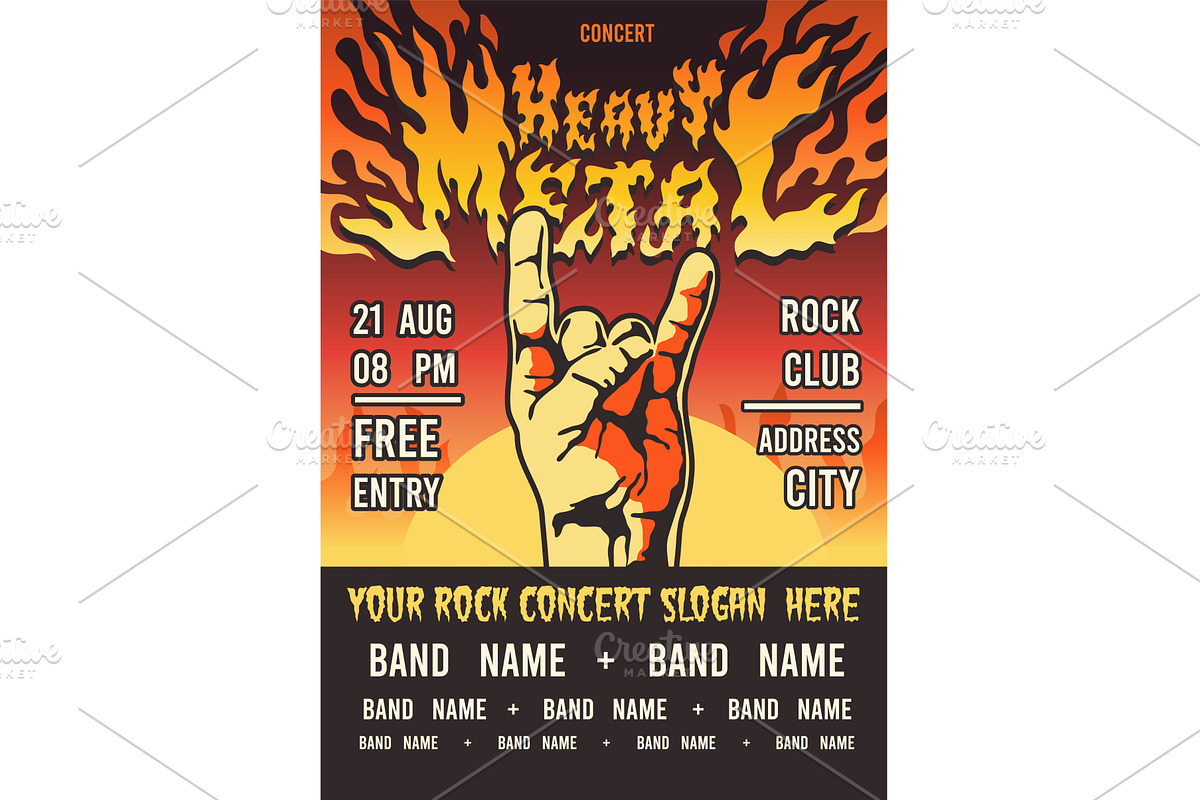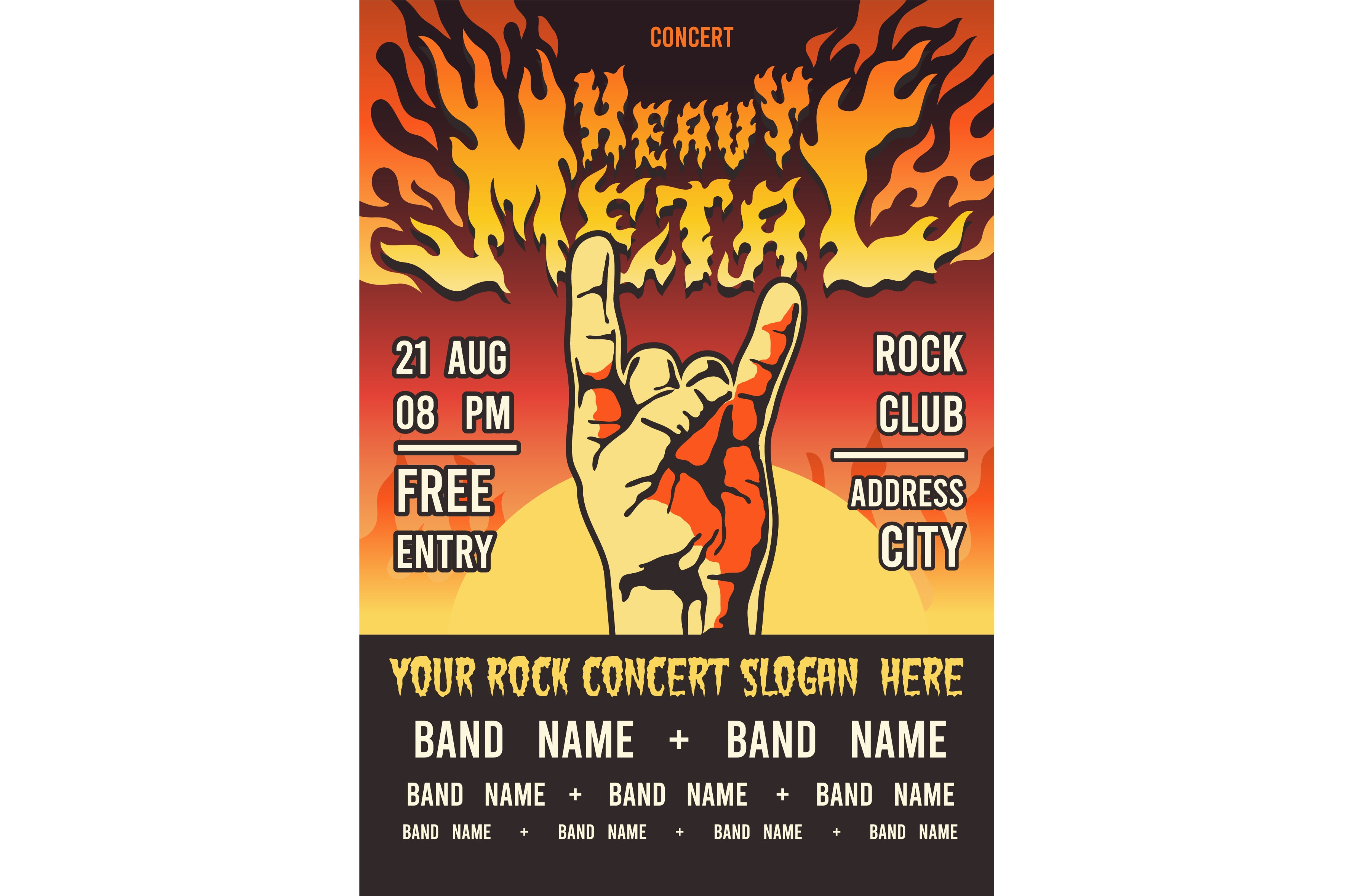
Burning font poster. Metal festival
Burning font poster. Metal festival invitation, rock concert banner, heavy live music party, flamed text, fire letters, horns hand gesture flammable lettering, typographic template tidy vector concept